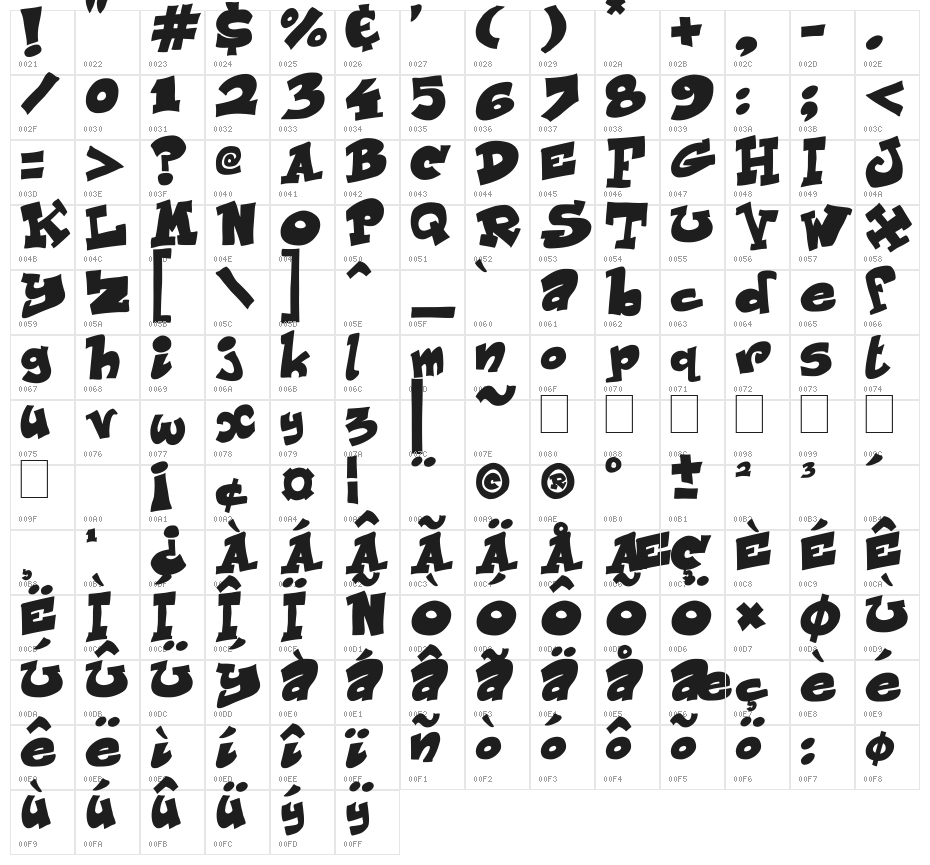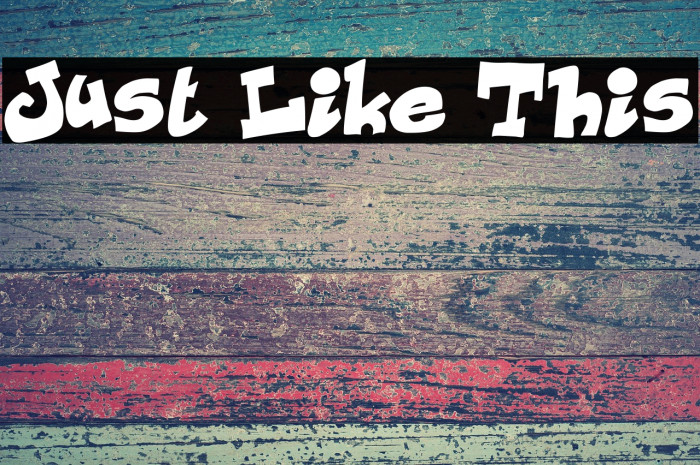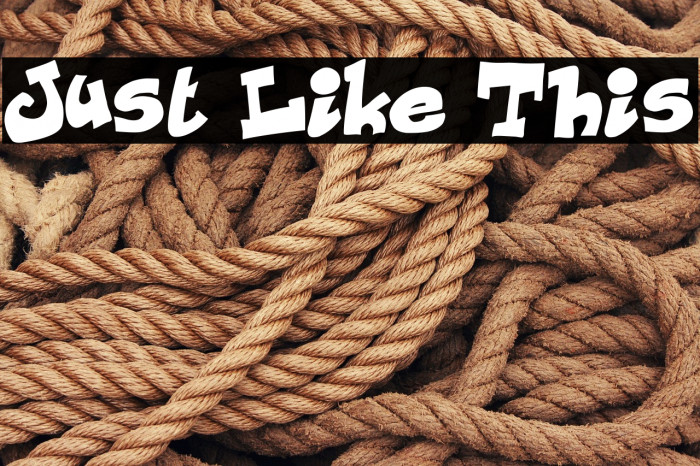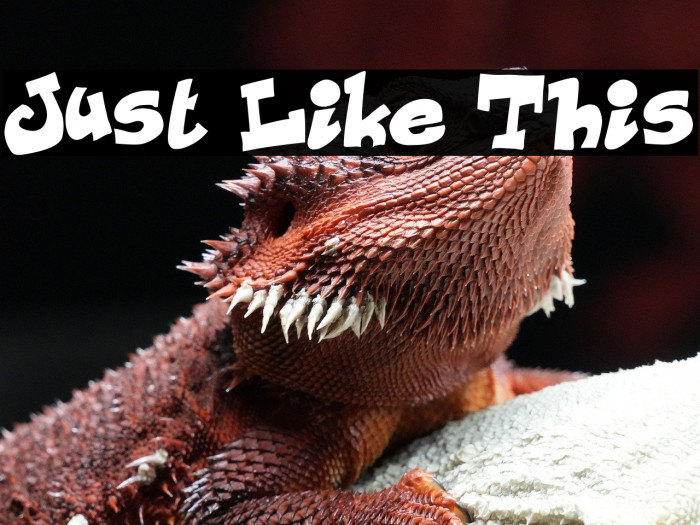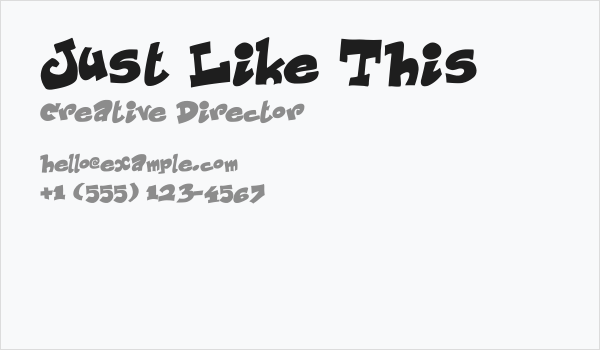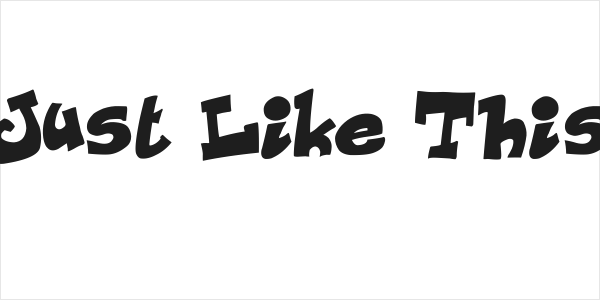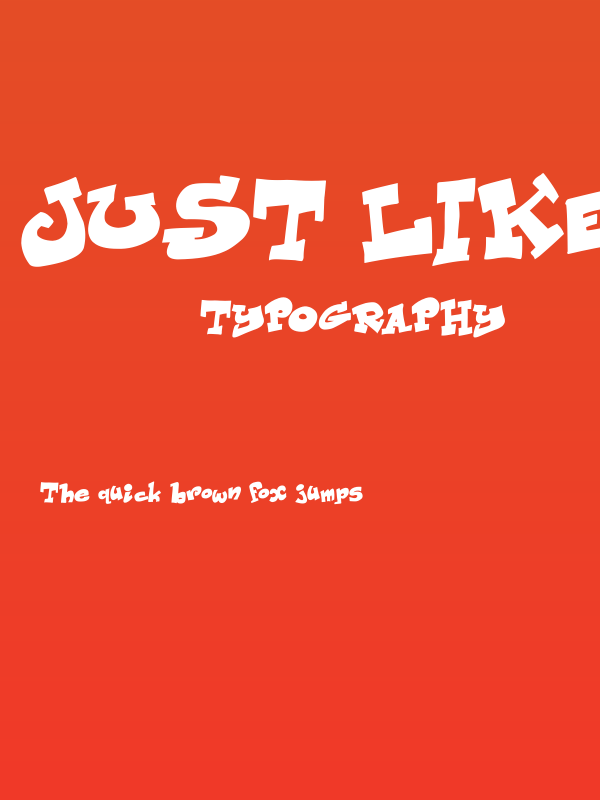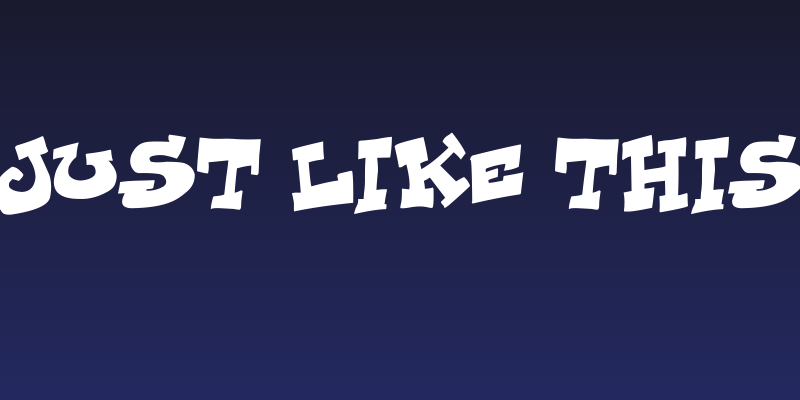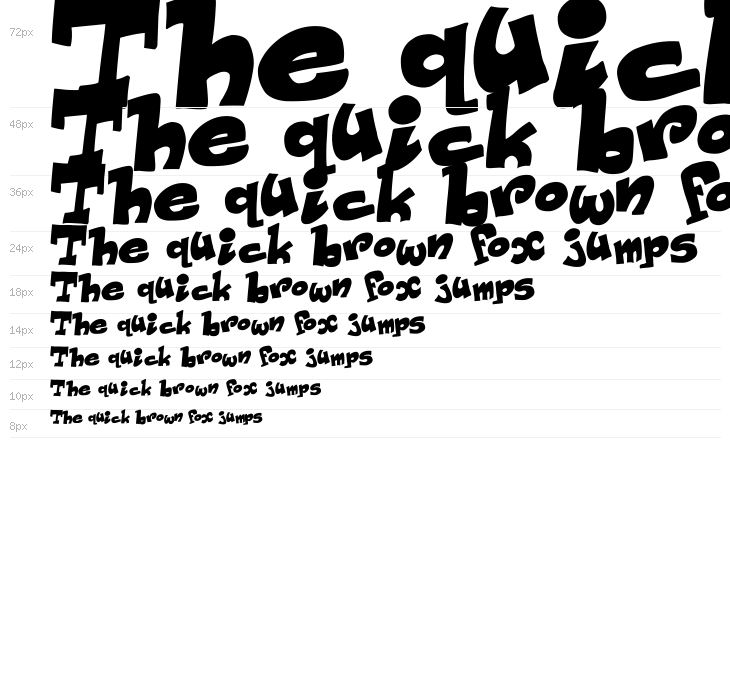
Just Like This Font
Just Like This Description
This font features a playful and bold design with exaggerated curves and angles, creating a sense of movement and energy. The uppercase and lowercase letters have a whimsical, cartoon-like appearance, making them stand out with their unique shapes. The numbers and special characters maintain this lively style, ensuring consistency throughout the typeface. The overall look is informal and fun, perfect for projects that require a touch of creativity and humor. The thick strokes and irregular forms give it a hand-drawn feel, adding to its charm and appeal.
| Overall Style | Playful, Cartoonish |
| Proposed Projects | Ideal for children's books, comic strips, playful branding, and party invitations. |